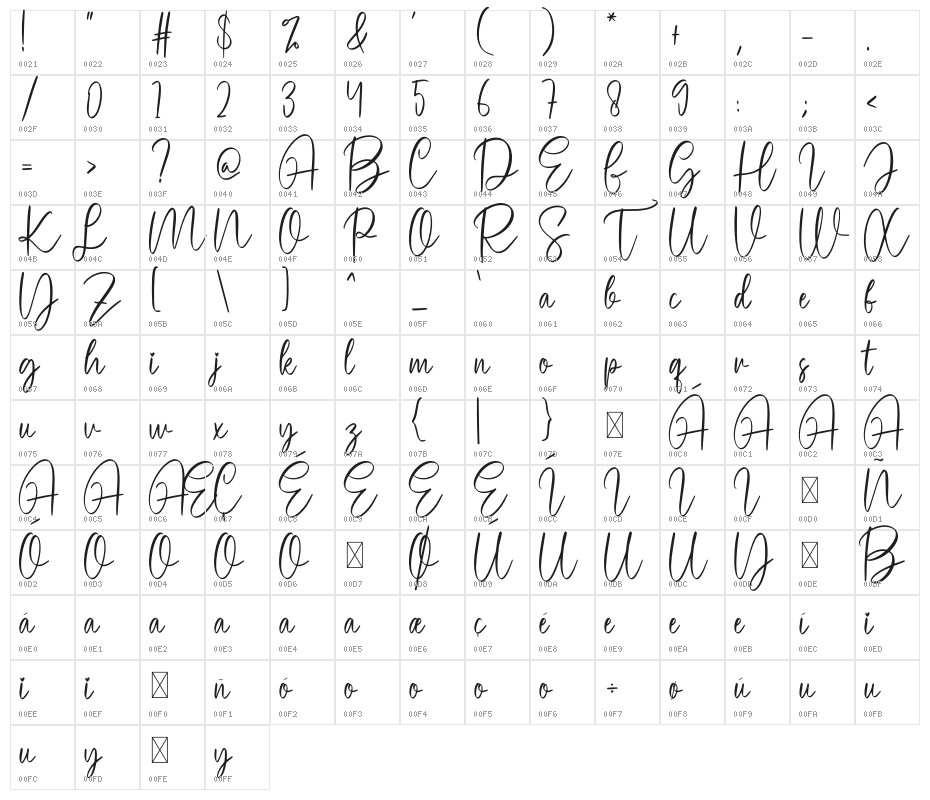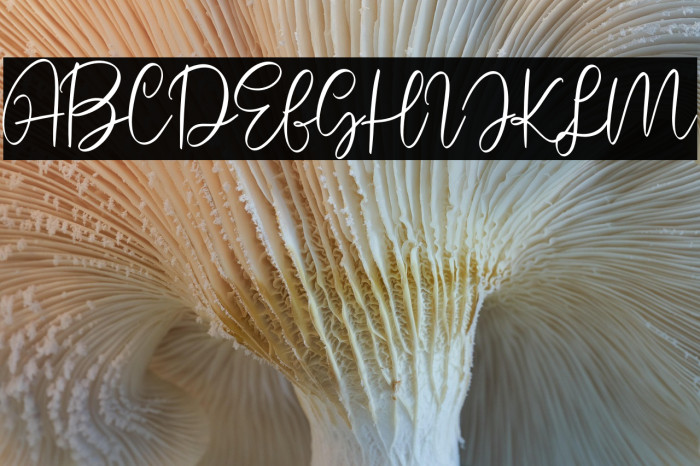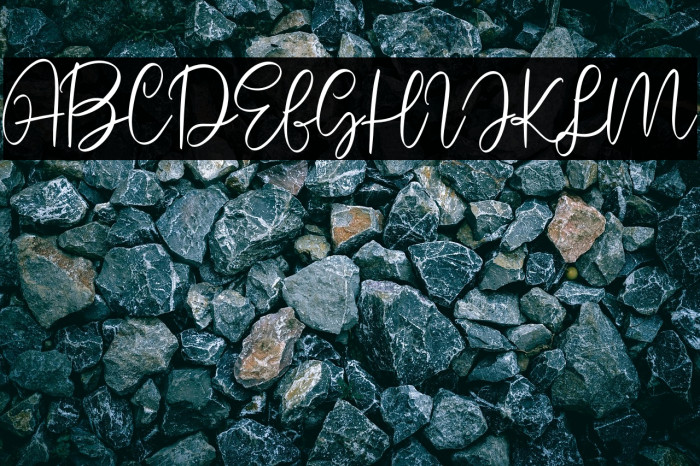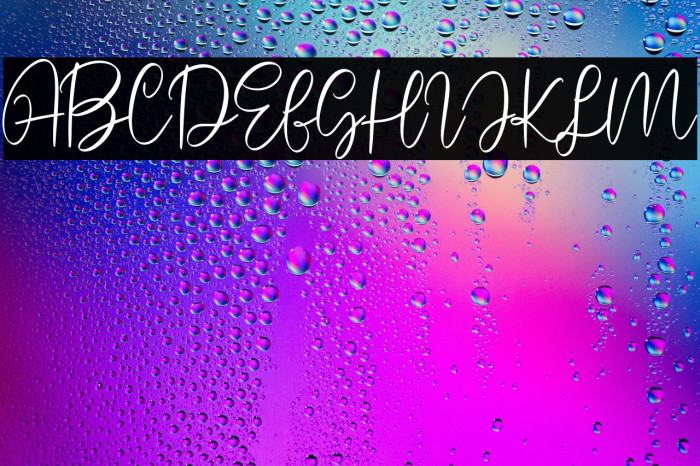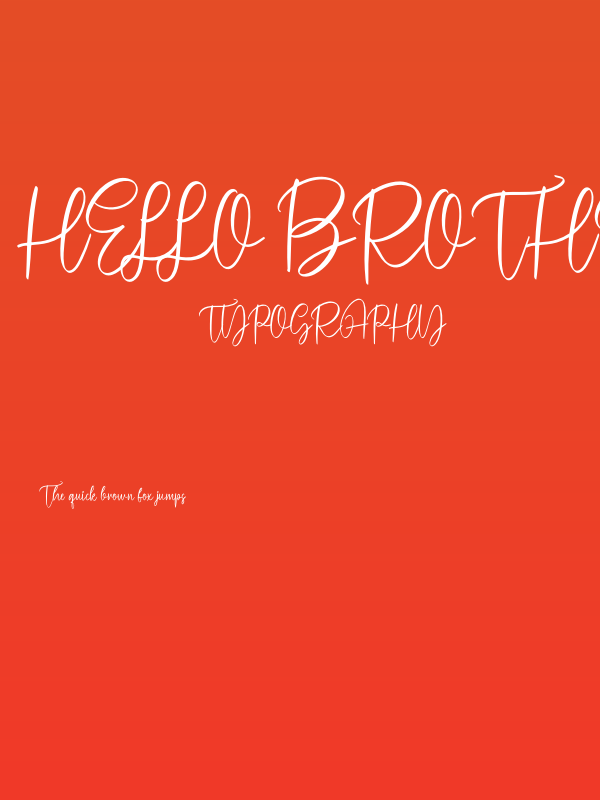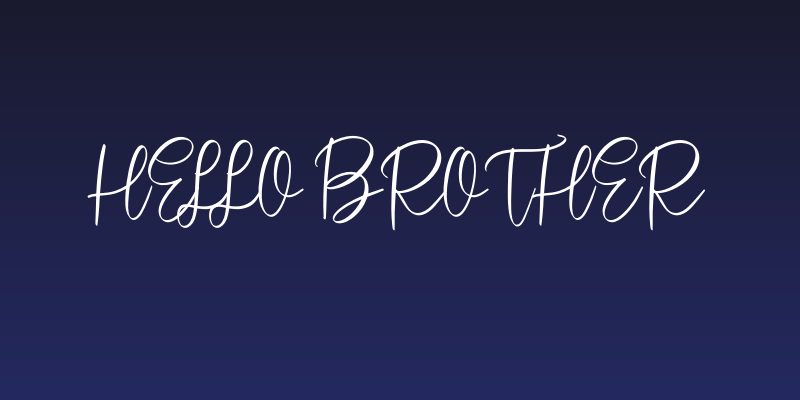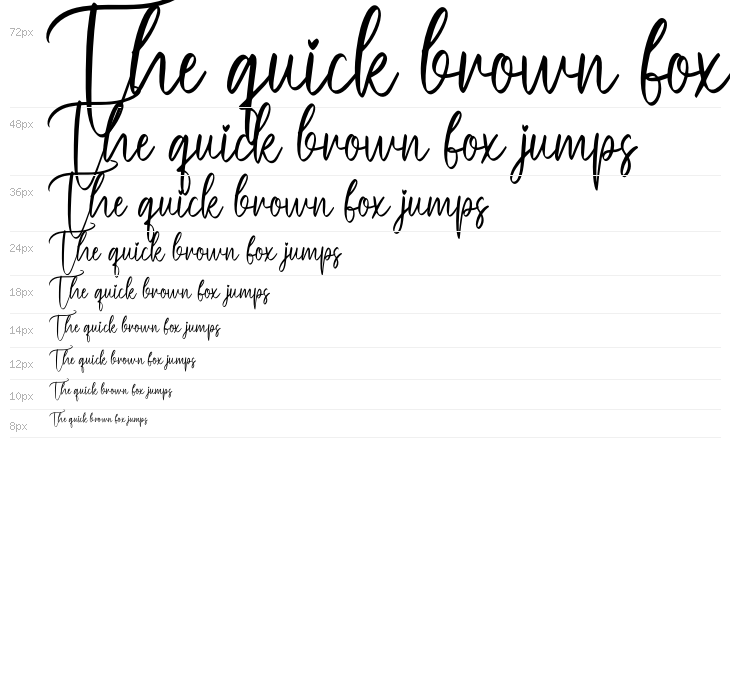
Hello Brother Font
Hello Brother Description
A flowing, cursive script font with a handwritten style, featuring smooth, continuous strokes and a casual, elegant appearance.
| Use Case | Logos, Invitations, Greeting cards |
| Proposed Projects | Invitations, greeting cards, personal branding. |